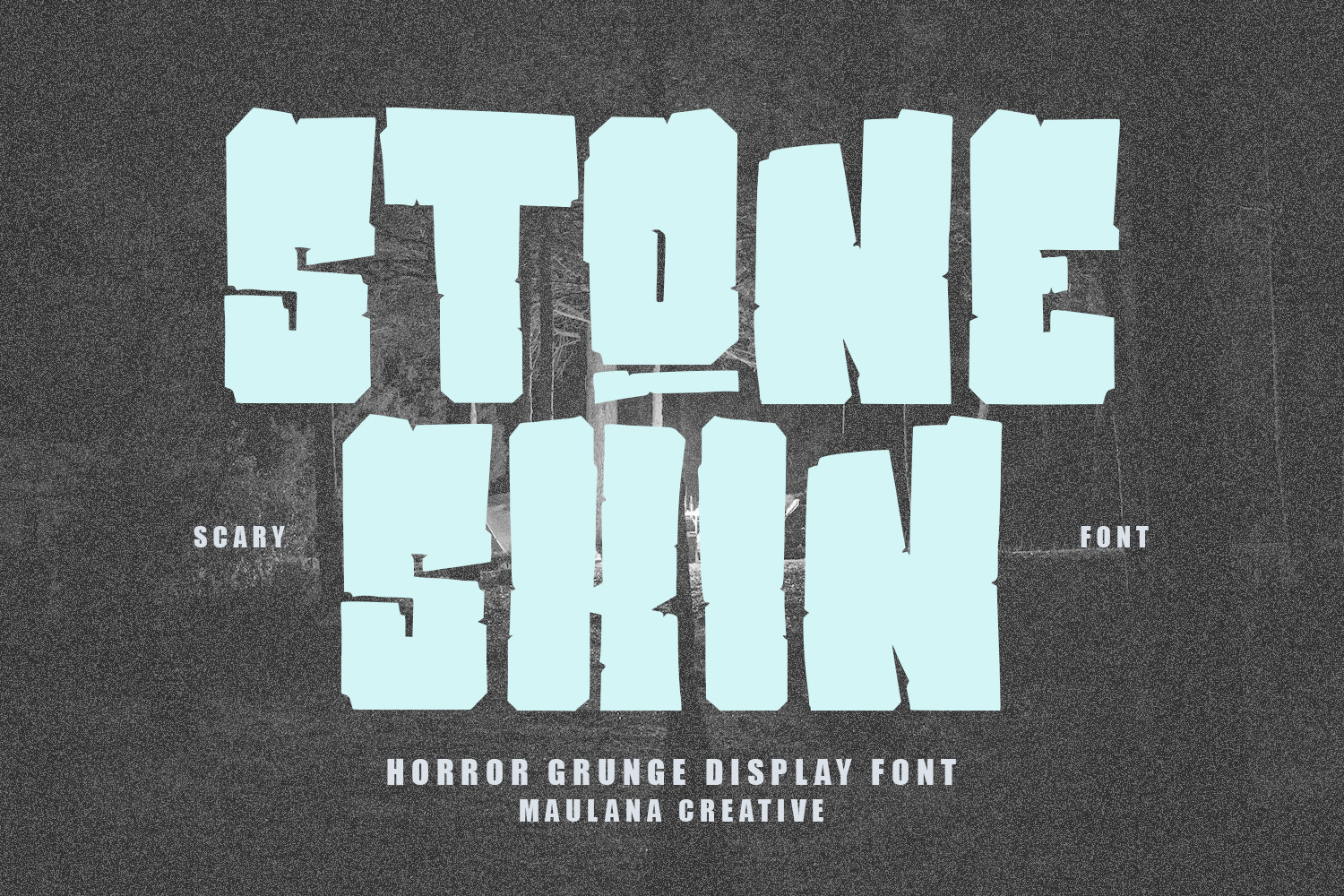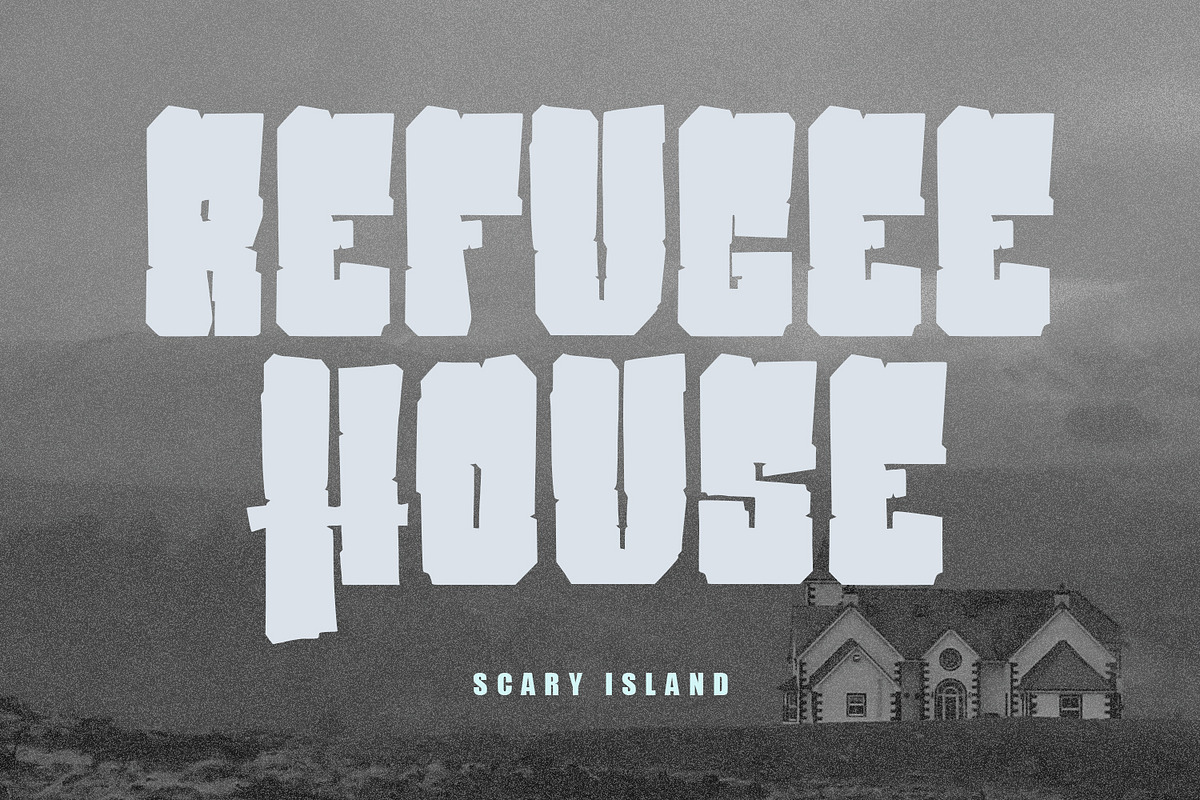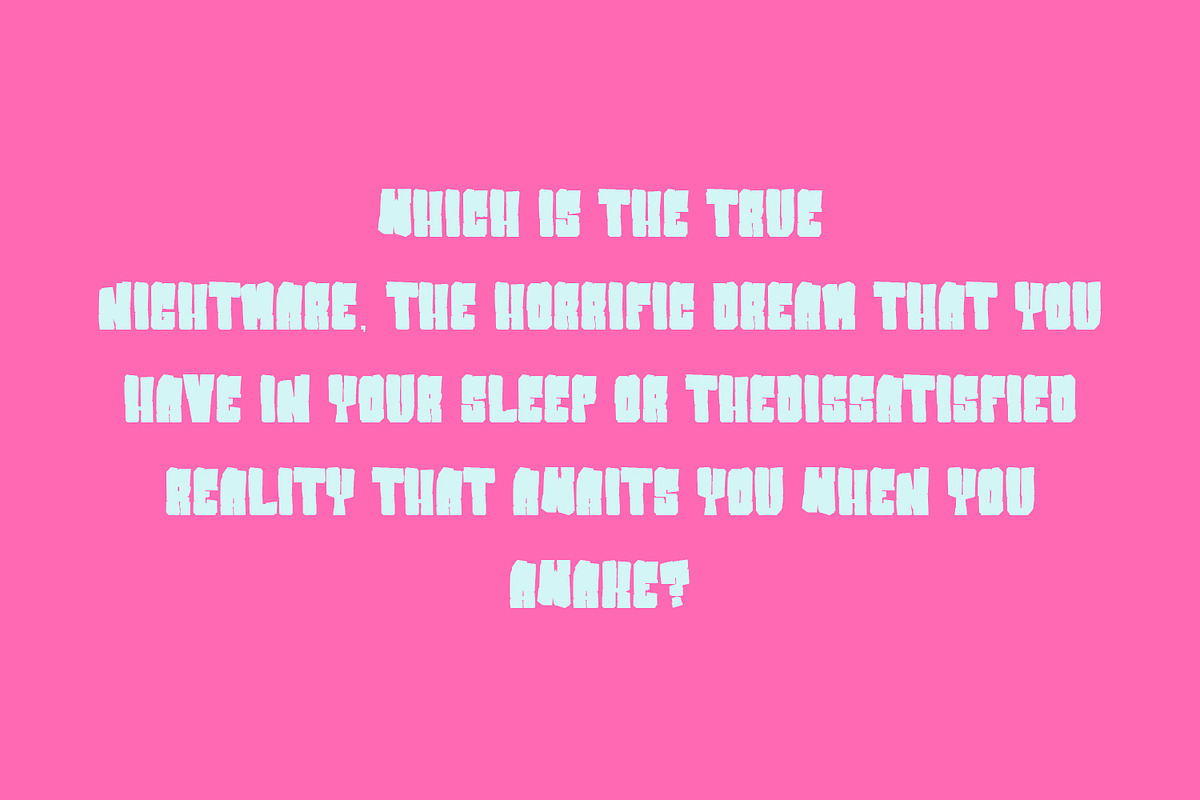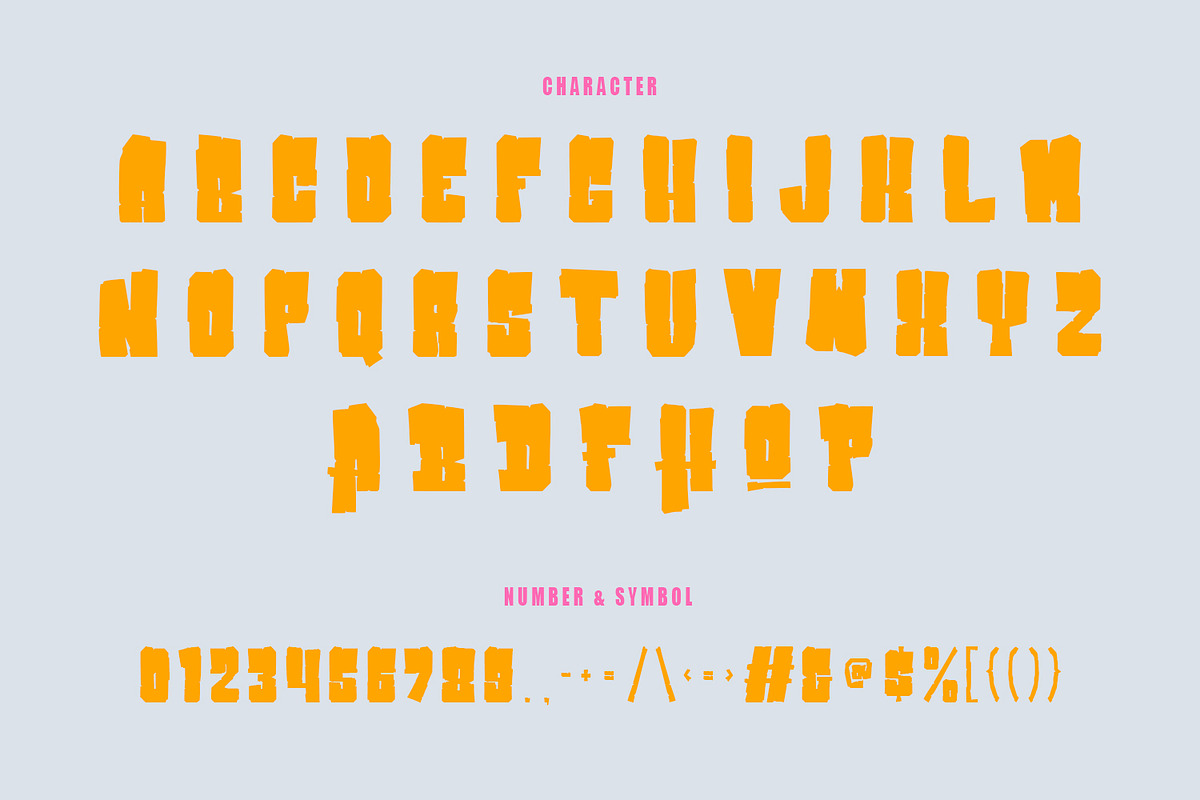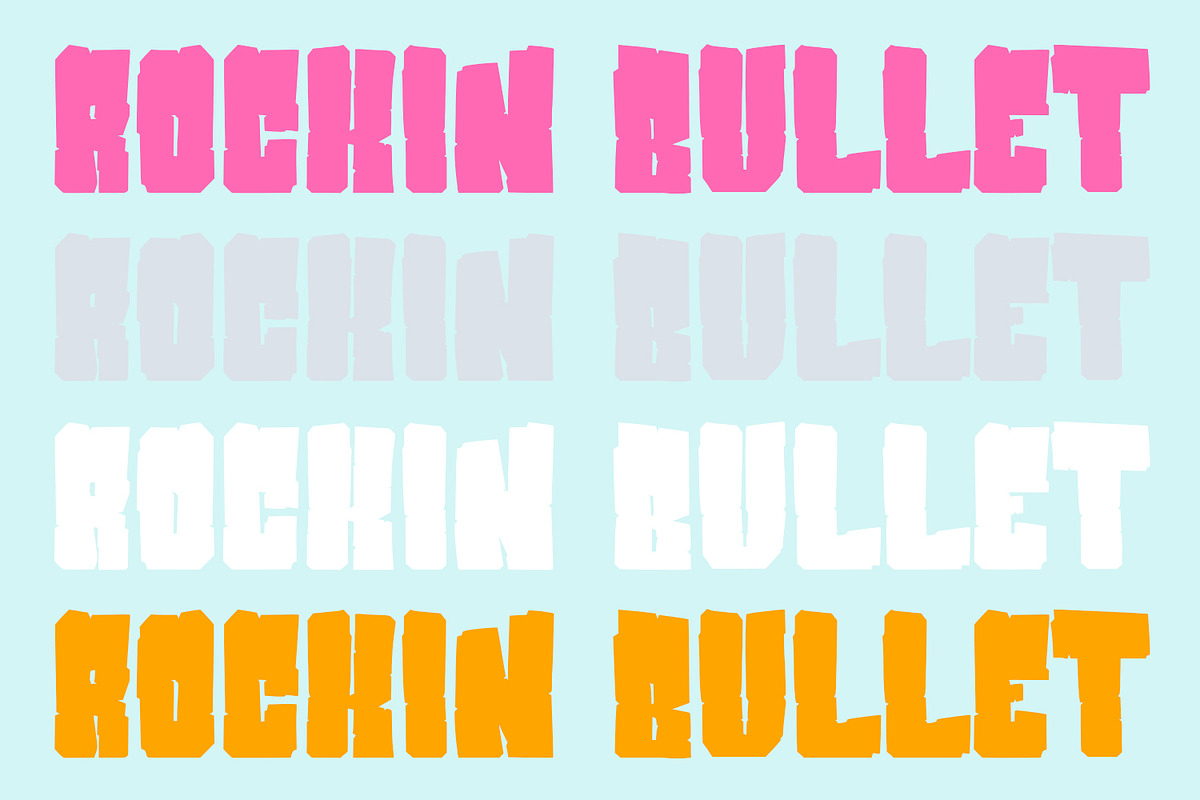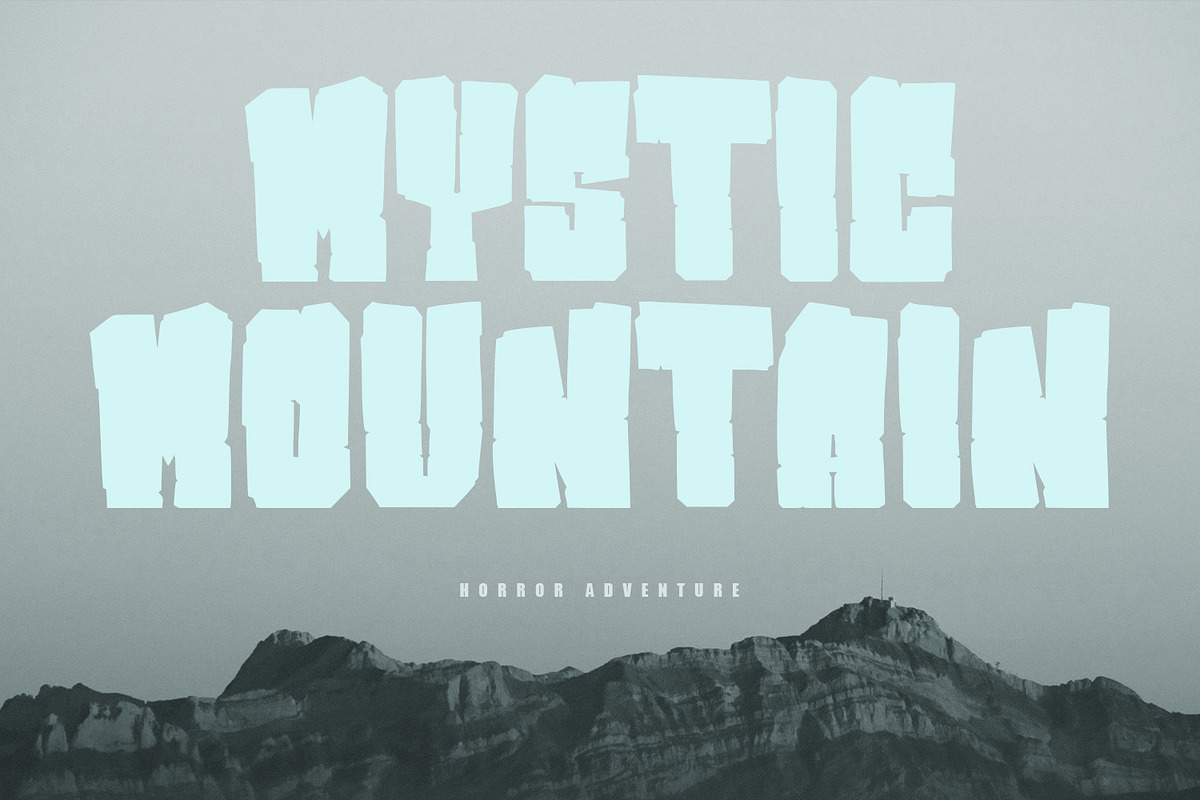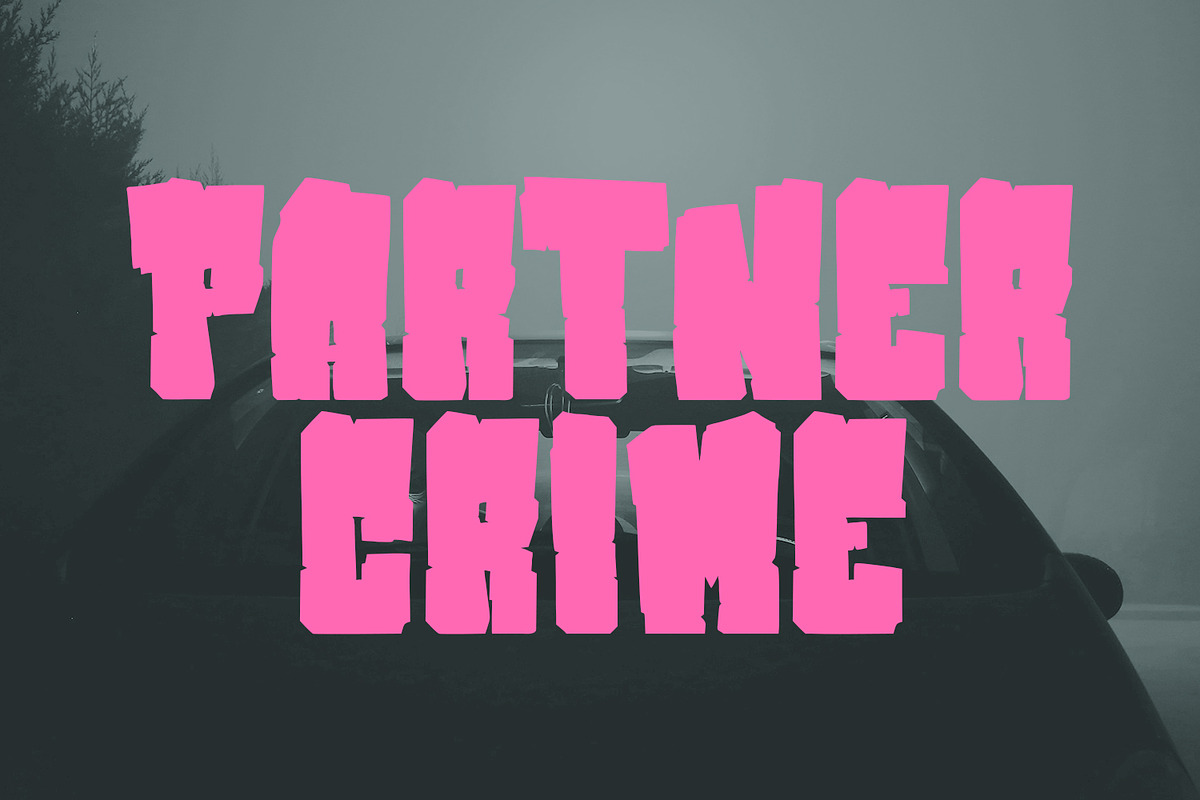
Stone Skin Horror Grunge Font
Stone Skin horror grunge font, fun character with alternates to give you an extra creative work. Stone Skin horror grunge font support multilingual language.